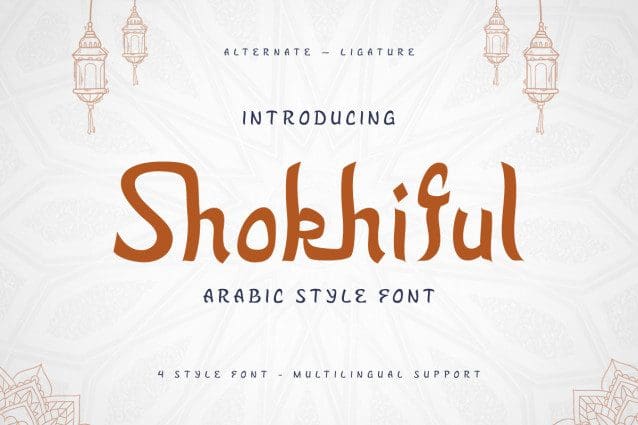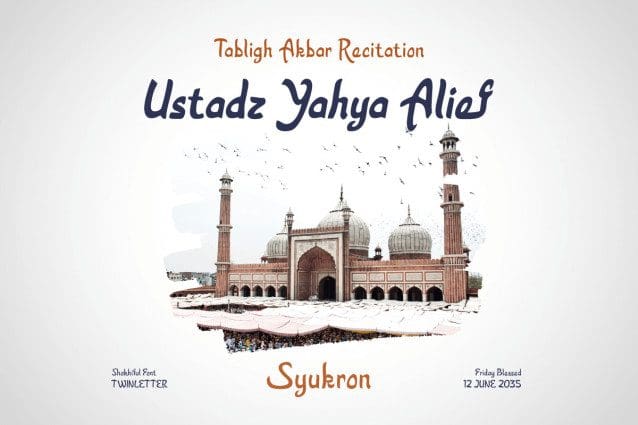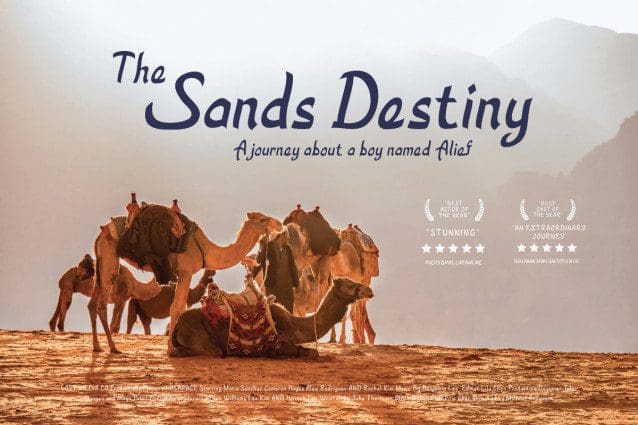
Shokhiful Arabic Font
Shokhiful Arabic Font, an Arabic-style font that exudes classic elegance and beauty. Designed with meticulous detail, each letter in Shokhiful Arabic depicts the unique art of Arabic calligraphy, bringing an exotic touch to your design projects.
Shokhiful offers the ability to convey messages with beautiful typography inspired by the traditions of Arabic script art. With flowing lines and subtle artistic elements, this font opens the door to a world of design that showcases the richness of Arab culture.
Shokhiful’s strengths lie in the beauty of its proportions and its ability to integrate elegantly in a variety of design contexts. From wedding invitations to promotional materials with a Middle Eastern twist, Shokhiful allows designers to dive into the elegance of Arabic calligraphic heritage in every project.
With Shokhiful Arabic, bring an exotic and classic feel to your design works. Let each letter be an expression of art and calligraphic skill, making your designs speak the language of unparalleled Arabic beauty.